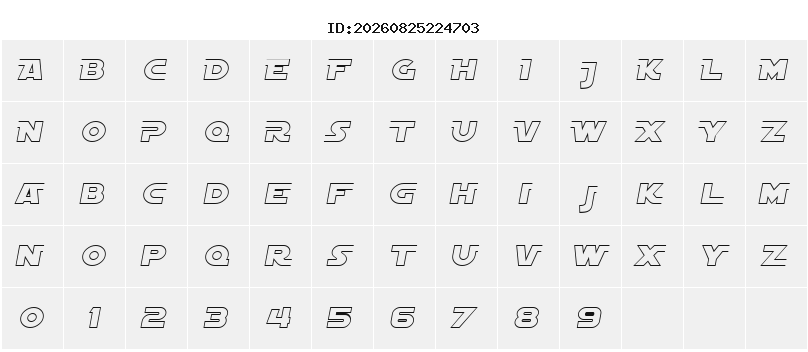
SF Distant Galaxy AltOutline Preview
• Font Name: SF Distant Galaxy AltOutline
• Font ID: SF Distant Galaxy AltOutline Italic
• Full Font Name: SF Distant Galaxy AltOutline Italic
• PostScript Name: SFDistantGalaxyAltOutlineItalic
About SF Distant Galaxy AltOutline.ttf
SF Distant Galaxy AltOutline.ttf is a modern, elegant sans-serif font designed for ultimate readability and visual harmony. Perfect for branding, headlines, web design, and print materials.